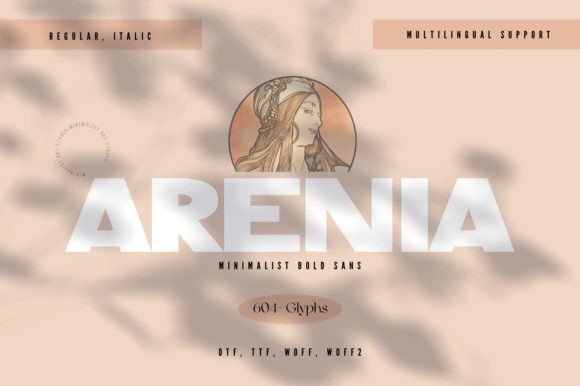
Prepare your designs for an unforgettable journey with Arenia Font, the exquisite sans-serif that embodies grace and refinement. Crafted with precision and elegance, this font is a design masterpiece that will leave an everlasting impression on your audience.
Unleash your creativity with its expansive glyph library, boasting over 604 glyphs, empowering you to explore a world of design possibilities. Its multilingual support opens doors to global expression, making your designs speak to audiences worldwide.
Picture your brand soaring to new heights, adorned with the sophisticated charm of Arenia Font. Its clean, sleek lines and captivating curves will elevate your packaging designs, leaving an enchanting mark on your customers. Let your cosmetic branding radiate with a touch of elegance, conveying the essence of luxury and allure.
Fashion and perfumes will dance with an irresistible allure when paired with Arenia Font. Its minimalist design gracefully complements the delicate details of fashion, while adding an air of sophistication to perfume bottles, evoking a sense of timeless beauty.
Embark on the path to design excellence, where Arenia Font will lead the way. Its bold and minimalist style stands as a beacon of modernity, ensuring your designs command attention without sacrificing sophistication.
Don't let your creativity be confined – unlock the boundless potential of Arenia Font today and witness your designs transform into works of art. Its versatility and beauty will ignite your imagination, empowering you to create designs that captivate and inspire.